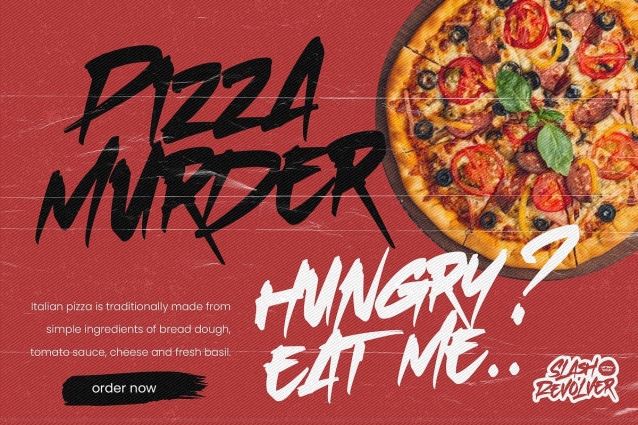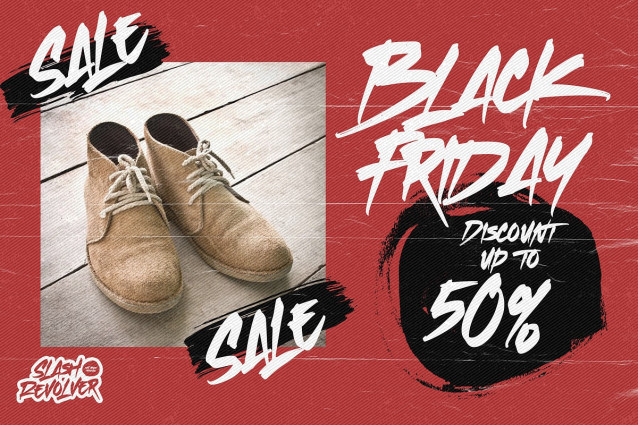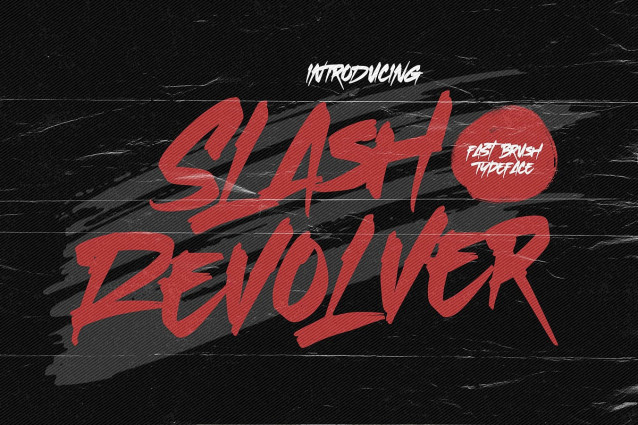
Slash Revolver Script Font
Slash Revolver Script Font is a Freehand Written Font with a Brush Style and classy style, this font is great for your creative projects such as watermark on photography, and perfect for logos & branding, photography, invitation, watermark,advertisements,product designs, stationery, wedding designs,label ,product packaging, special events or anything that need Slash Revolver taste. That is why Slash Revolver has authentic and strong characteristic more natural look. You can activate Ligature OpenType panel and alternate glypsh.